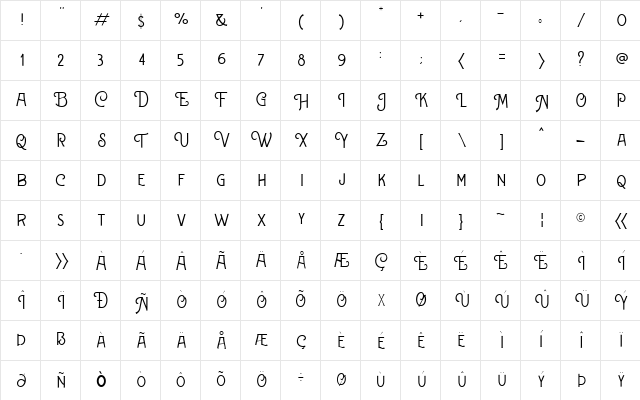
Wincosin Thin Regular
| Foundry | fortunes designs |
| Designer | ramandhani |
Design Context for Wincosin Thin Typeface
Wincosin Thin is a composed and adaptable typeface that performs quietly and consistently across a wide range of design contexts. Its slender proportions lend an understated elegance to any composition.